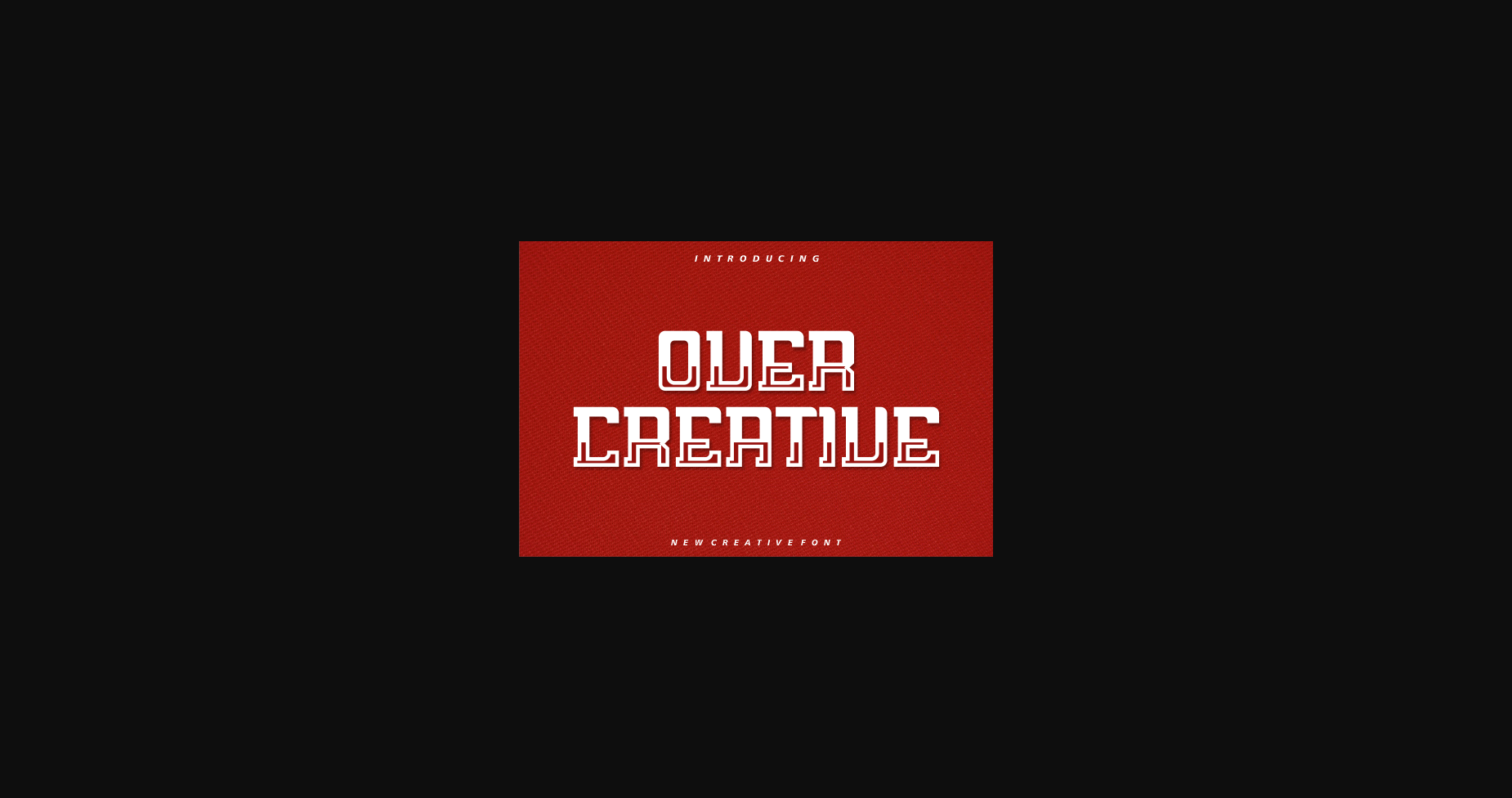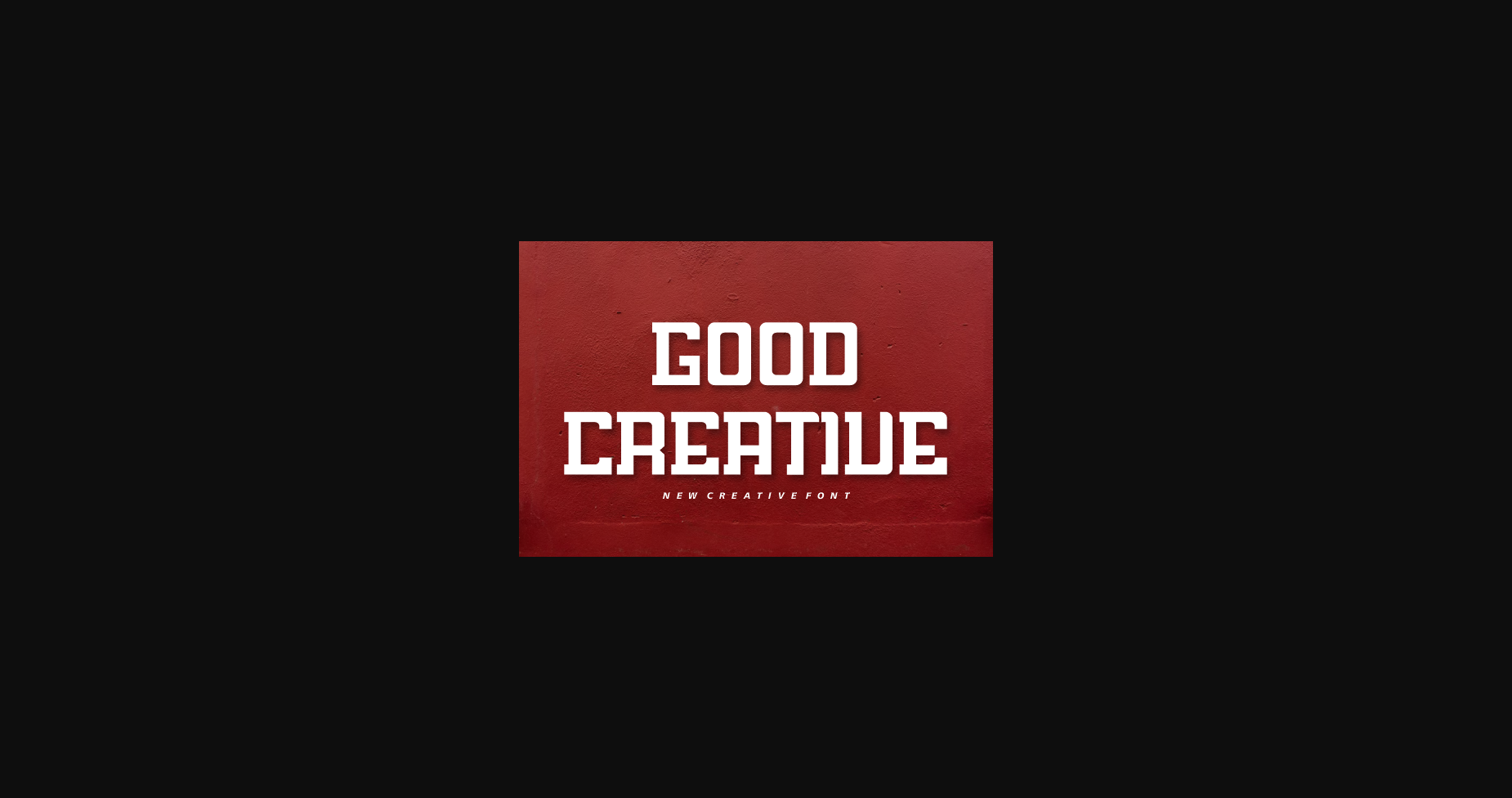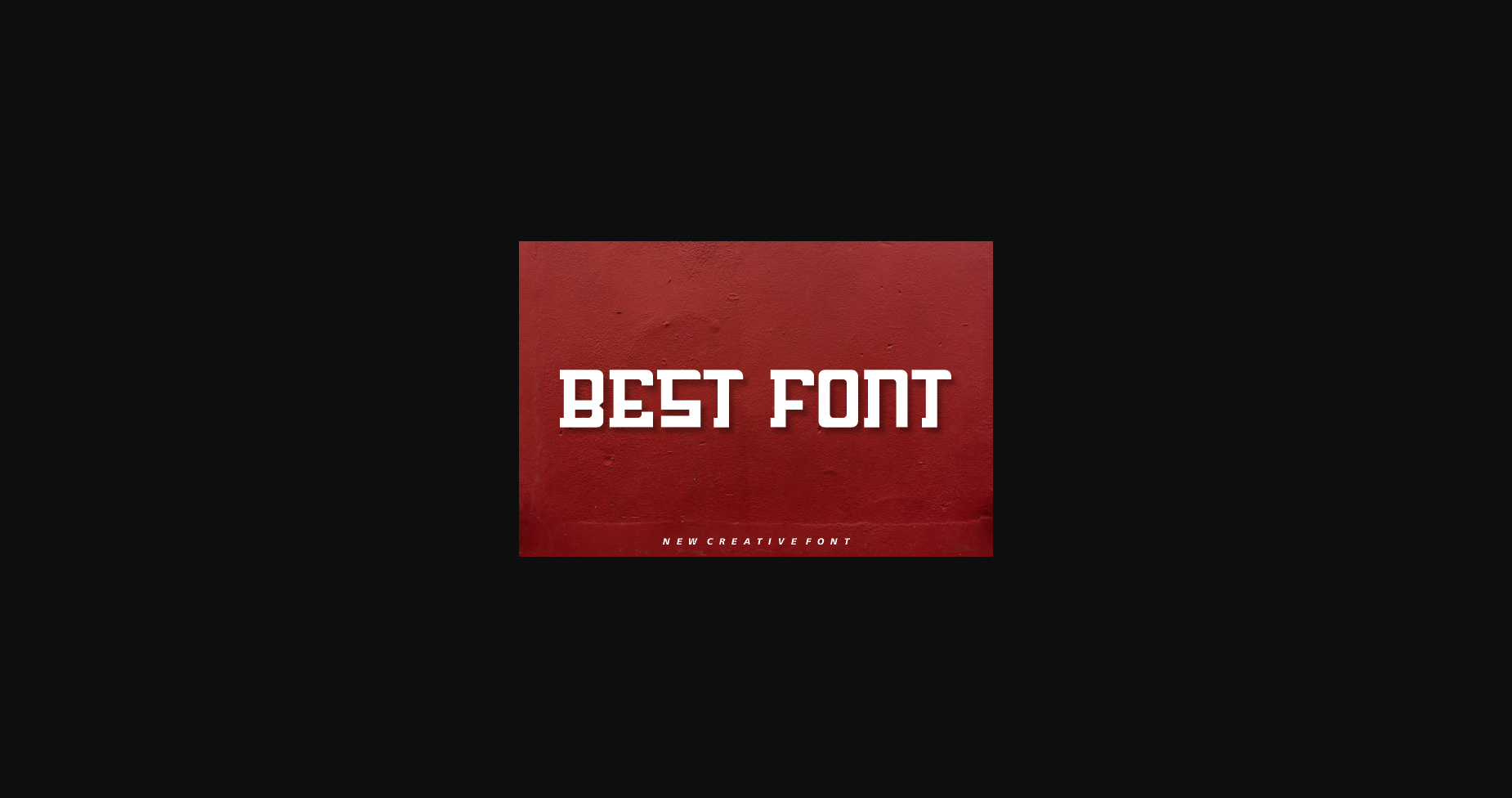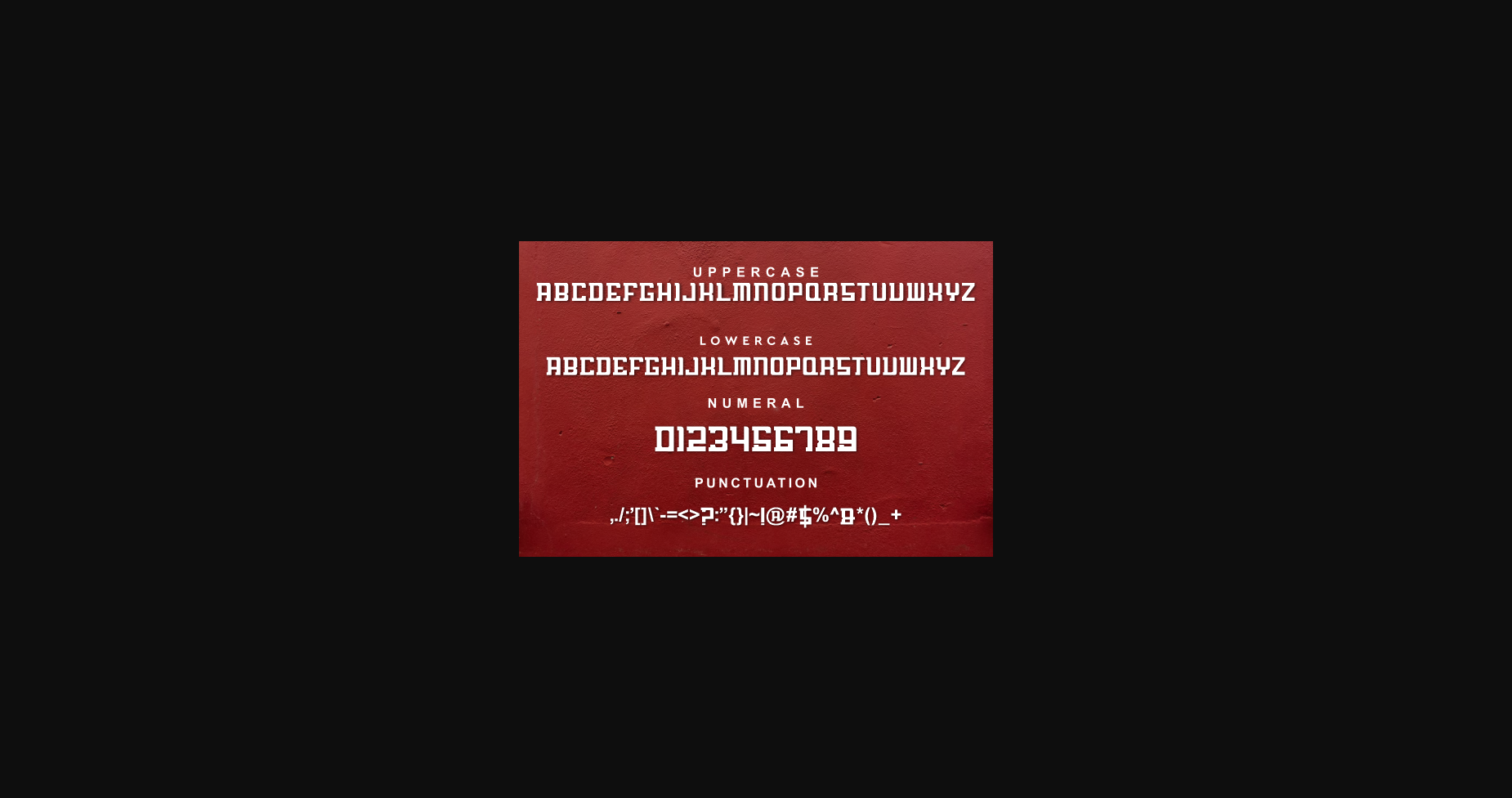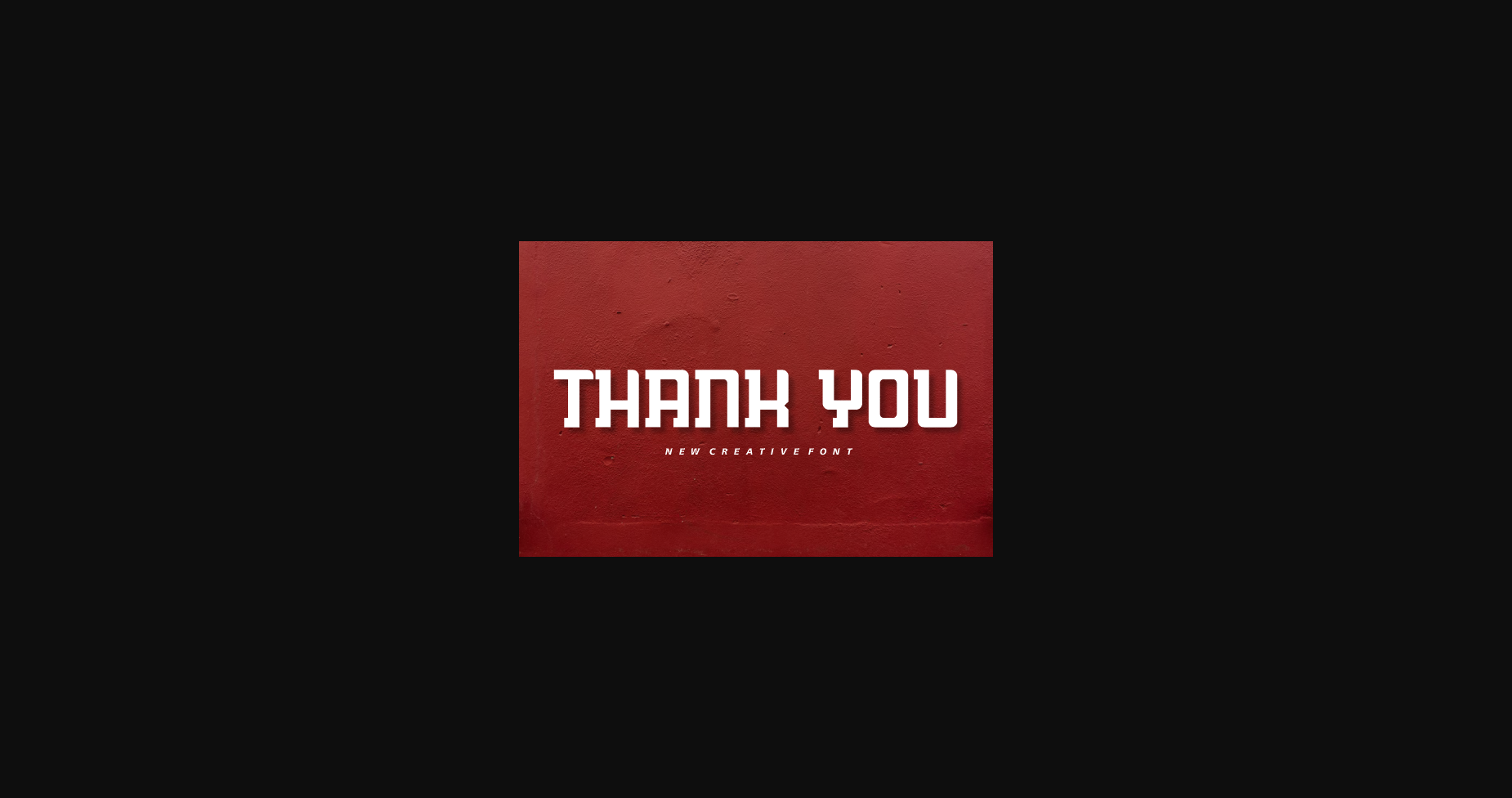
HomeSans Serif FontsOver Creative Font Sans Serif Fonts Over Creative Font FacebookXPinterestWhatsApp 1 of 7 ... Over Creative Font Poster 2... Over Creative Font Poster 3... Over Creative Font Poster 4... Over Creative Font Poster 5... Over Creative Font Poster 6... Over Creative Font Poster 7... About Over Creative Font Over Creative – Modern Font is a bold and authentic display font. The font is suitable for any branding project like logo, t-shirt printing, Game, sport, and many more. outstanding in a wide range of contexts. DOWNLOAD NOW People also explored Procreate Font Sattyan Font Rocker Squad Realistic Mock-ups on Vintage Background Karlos Font Coloseum Font Westlynn Font Hustle Font Black Resorten Font 316 0 TagsOver Creative Font Previous articleQuickly Work Line FontNext articleHard Guardian Font LEAVE A REPLY Cancel reply Comment: Please enter your comment! Name:* Please enter your name here Email:* You have entered an incorrect email address! Please enter your email address here Website: Save my name, email, and website in this browser for the next time I comment. Personal Use Free Orchid Personal Use Free Read more about this font DangeRNighT Font Personal Use Free Read more about this font Lovetle Personal Use Free Read more about this font Kellana Personal Use Free Read more about this font BLOG Fonts That Capture the Spirit of New York City New York City is more than just a place—it’s an experience, a rhythm, a visual language... How to Install and Use Fonts on Windows, macOS, and Web Projects Modern Sans-Serif Fonts That Brands Love in 2025 To increase your work productivity, choose the most readable fonts.